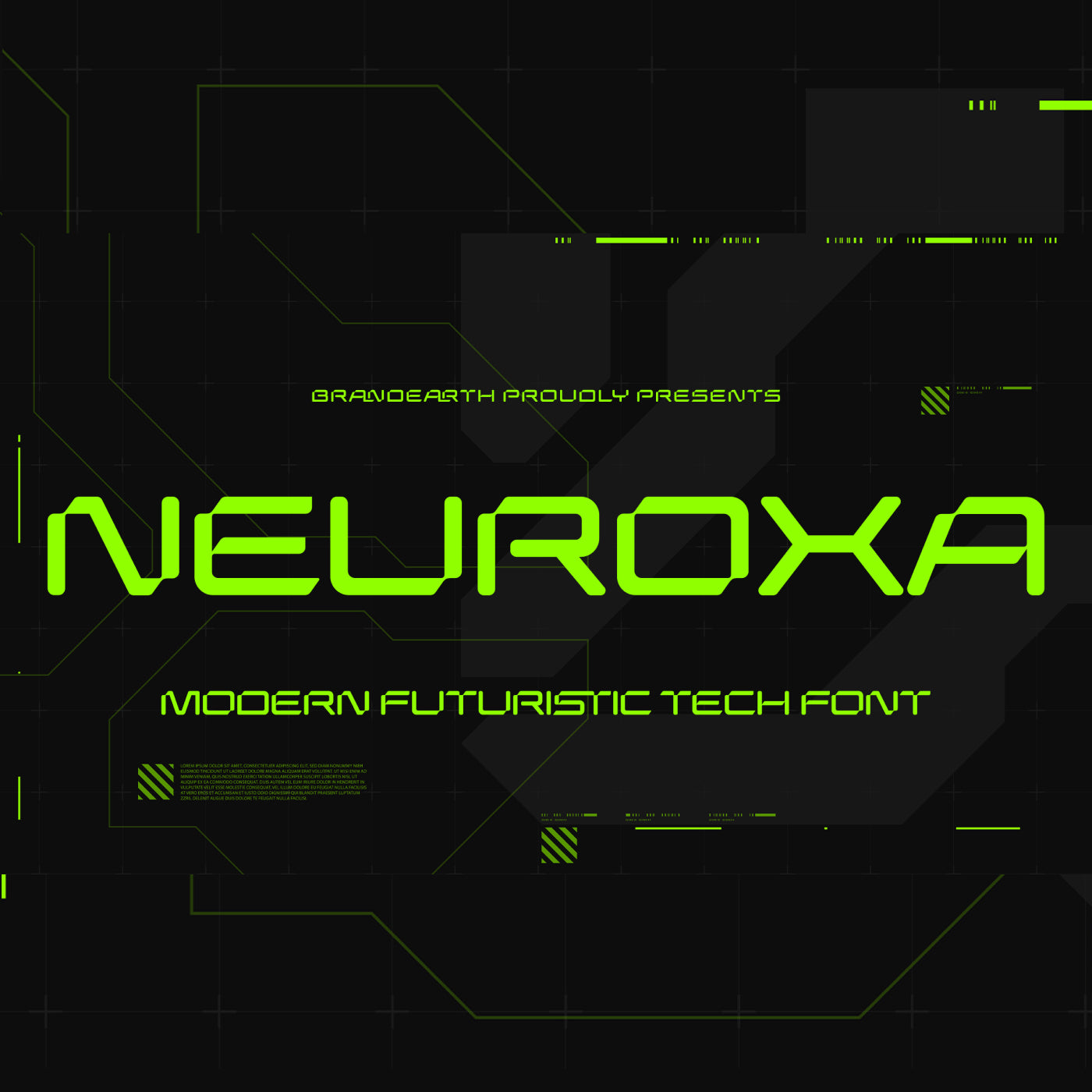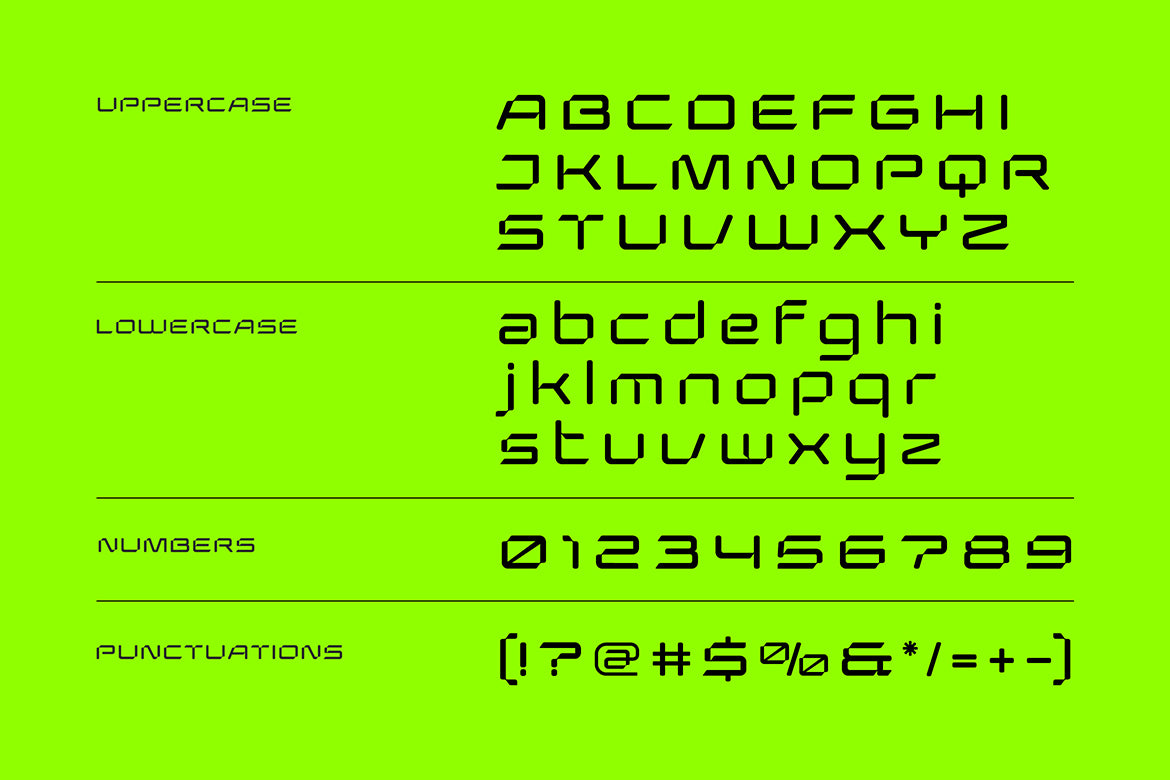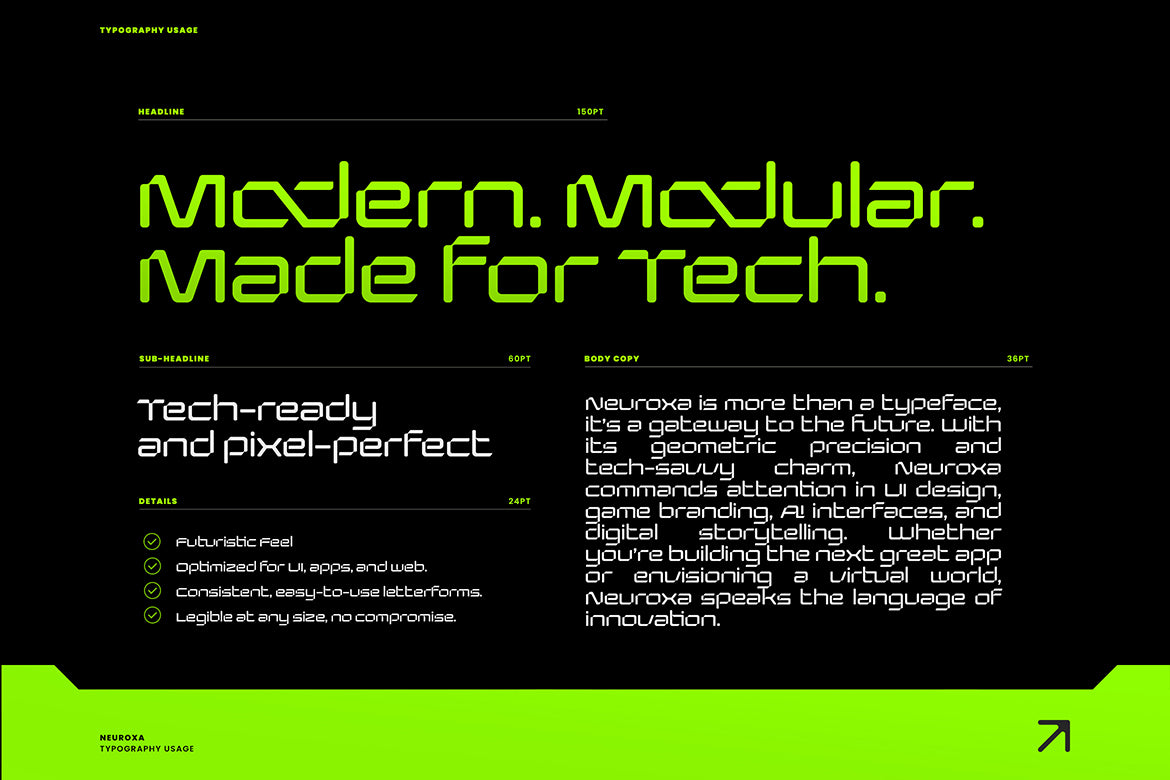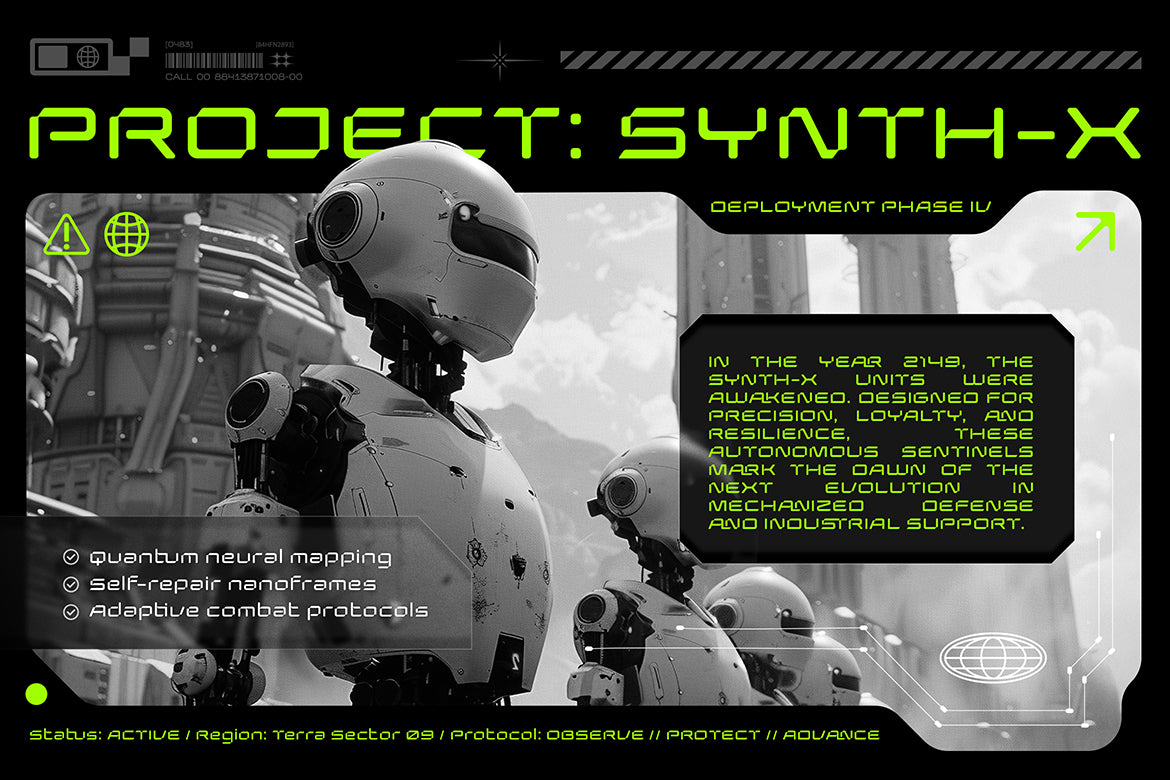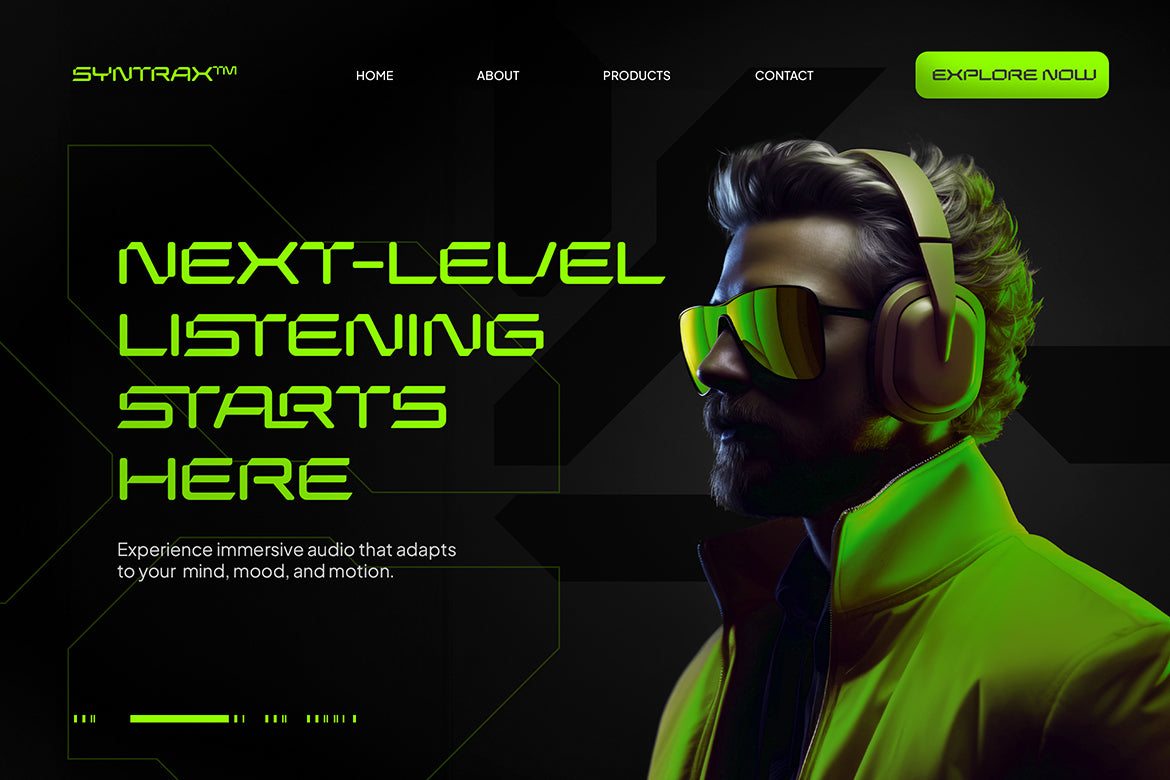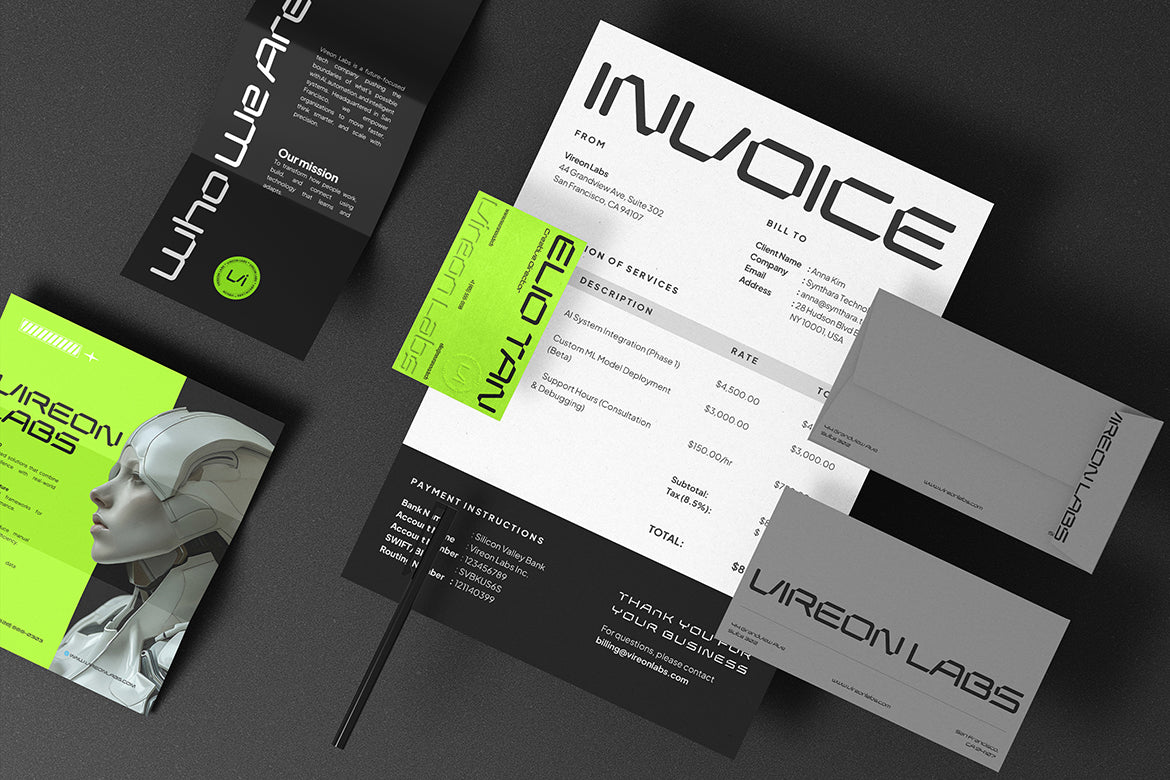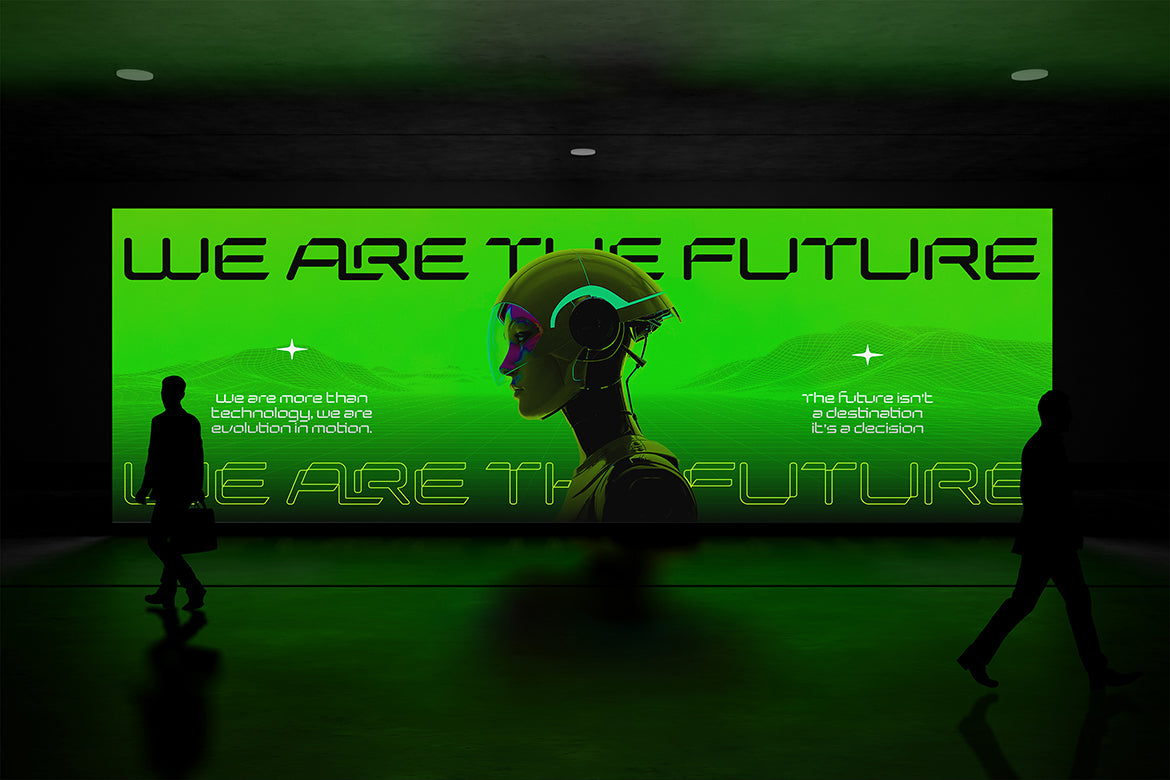
Neuroxa Modern Futuristic Tech Font
Neuroxa is a modern futuristic tech font designed with a unique geometric construction and a sci-fi aesthetic. Featuring sharp angles, minimalistic curves, and a digital-inspired rhythm, this font is perfect for high-tech branding, sci-fi movie titles, cyberpunk posters, gaming interfaces, space-themed projects, or any design that demands a sleek, tech-forward typeface. Its uppercase and lowercase styles deliver a consistent futuristic feel that’s ideal for both display and UI/UX contexts.
Neuroxa is a geometric tech font with uppercase and lowercase styles, ligatures, alternates, numerals, and punctuation, available in TTF, OTF, and WOFF formats with multilingual support. It features sharp angles and minimalistic curves for a digital, sci-fi aesthetic.